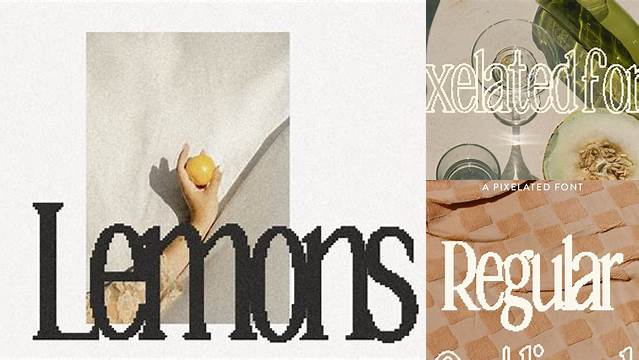
Spencer Pixelated Font: Free Download & Design Guide
Hey guys! If you're looking for a cool, retro-inspired typeface, then look no further than the Spencer Pixelated font! This awesome font, with its blocky, digital look, is perfect for a wide range of projects. Whether you're designing a website, creating a video game interface, or just want to add a touch of nostalgia to your work, the Spencer Pixelated font is a fantastic choice. And the best part? You can find Spencer Pixelated font free downloads! In this article, we'll dive into everything you need to know about this awesome font, where to find it, and how to use it to make your designs pop.
What Makes the Spencer Pixelated Font So Special?
Alright, let's talk about what makes the Spencer Pixelated font stand out from the crowd. This font is all about that classic pixel art aesthetic. It's like taking a trip back to the golden age of video games, when every character and object was built block by block. The Spencer Pixelated font captures that feel perfectly. It's bold, chunky, and instantly recognizable. It's the kind of font that grabs your attention and screams, "Look at me!" That makes it ideal for headlines, titles, and anywhere you want to make a strong visual statement. You can use it for a variety of uses. For instance, you could use it for websites that are themed around gaming or even tech-related websites. This typeface can be used as a free spencer pixelated font for commercial purposes. The Spencer Pixelated font has a charm and appeal that makes it suitable for both digital and print media. Think about it: posters, flyers, social media graphics, and even merchandise. Plus, the font's simplicity makes it incredibly versatile. It works well on both light and dark backgrounds, and it's easy to read at different sizes. It doesn't matter if you're a seasoned designer or just starting out, the Spencer Pixelated font is easy to work with. It's a font that can add a touch of fun and creativity to your designs, and it's sure to put a smile on your face and the faces of those who view your designs! It's a font that brings a unique digital aesthetic to the design and can make it stand out. Using this font can help in communicating a sense of nostalgia or a modern technological feel. It also allows for a creative approach that can be visually appealing.
But, what exactly is the meaning of pixelated? Pixelated fonts, like the Spencer Pixelated font, are designed to resemble the blocky, low-resolution graphics found in older video games and early digital displays. Each letter and number is constructed using a grid of individual pixels, giving it a distinctive digital look. This makes them great for projects that want to evoke a retro or technological feel. Pixelated fonts are all about recreating the look and feel of classic video games, early computer interfaces, and other forms of digital art from the past. It's like a visual throwback, and it can be super effective at capturing a specific mood or era. The popularity of pixelated fonts has exploded in recent years. Designers and creatives of all types are finding new and exciting ways to use these fonts in their work. From website design and branding to video game interfaces and product packaging, the possibilities are endless. The Spencer Pixelated font is a prime example of this trend. It's a versatile and visually striking font that can add a unique touch to any project.
How to Use the Spencer Pixelated Font in Your Designs
Alright, you've downloaded the Spencer Pixelated font free of charge, and you're ready to start using it. What now? Well, the beauty of this font is its versatility. Here are some ideas and tips on how to use the Spencer Pixelated font to enhance your designs:
- Headlines and Titles: This is where the Spencer Pixelated font really shines. Use it for headlines, titles, and headings to grab attention. The bold, blocky appearance is perfect for making a strong visual statement.
- Website Design: Create a retro or tech-inspired website using the Spencer Pixelated font for your headings, navigation, and other important elements. It can give your website a unique and memorable look.
- Video Game Interfaces: If you're working on a game, the Spencer Pixelated font is a natural fit for the user interface. Use it for menus, in-game text, and other visual elements to create an immersive gaming experience.
- Logos and Branding: Design a logo that captures the pixelated aesthetic. The Spencer Pixelated font can add a touch of nostalgia and fun to your brand's visual identity.
- Social Media Graphics: Create eye-catching social media graphics and posts using the Spencer Pixelated font. It's a great way to make your content stand out in a crowded online space.
Conclusion: Embrace the Pixelated Revolution
So there you have it! The Spencer Pixelated font is a fantastic font that's perfect for adding a touch of retro flair to your designs. With its bold, blocky appearance and easy-to-read style, it's a great choice for headlines, titles, and any project where you want to make a strong visual statement. With so many free Spencer Pixelated font options available, there's no reason not to give it a try! By following the tips and ideas we've shared, you'll be able to create stunning designs that capture the pixelated aesthetic and take your creative projects to the next level. Now go out there and start pixelating! Have fun creating, and don't be afraid to experiment and let your creativity flow. The Spencer Pixelated font is waiting to help you bring your design visions to life!